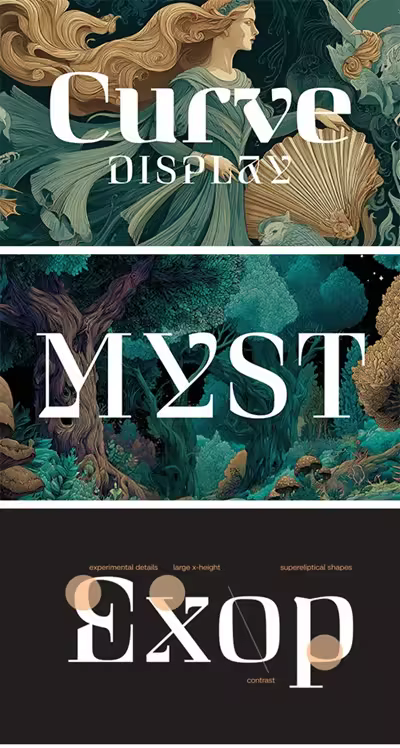
Curve Display is the related variant of Curve. It is a contemporary display font that combines the elegant classicism of the Didone tradition with experimental deconstruction. It has a large x-height and super-elliptical shapes that are deliberately broken, fragmented or mirrored. The result is a powerful tension between elegance, irritation and contemporary expression. Curve Display stands for strong visual statements that deliberately experiment with legibility and perception.